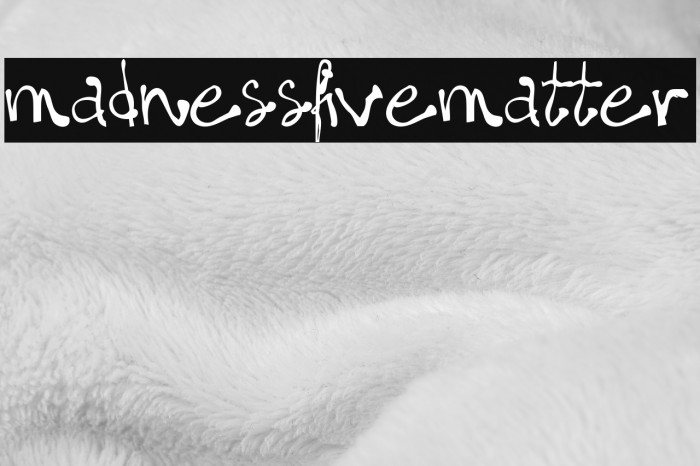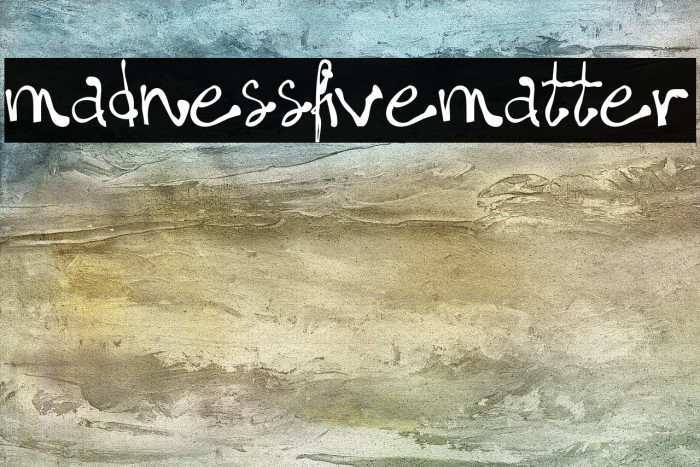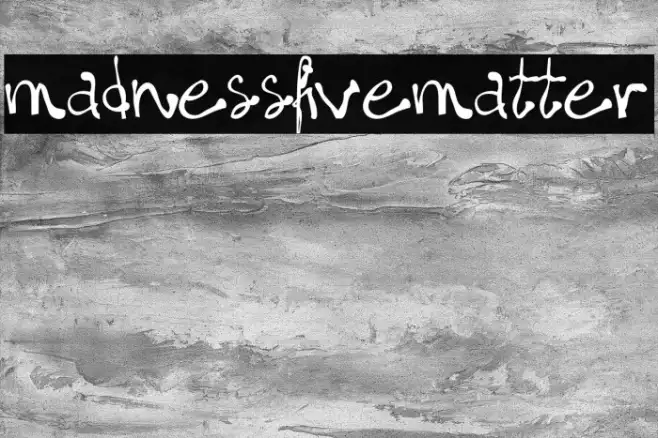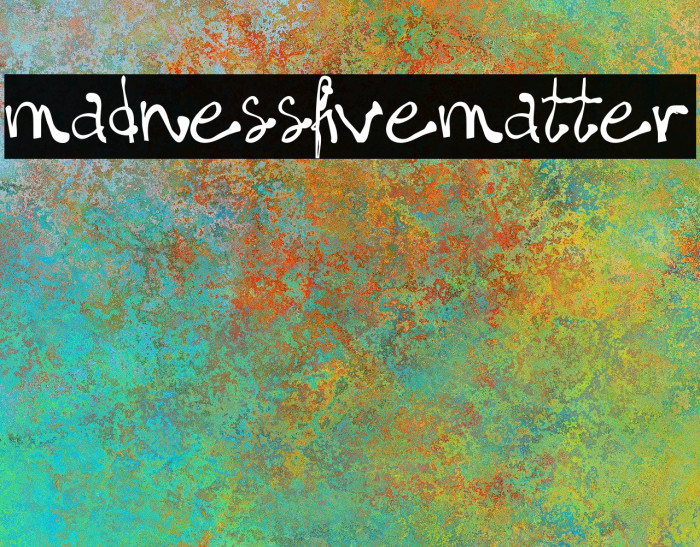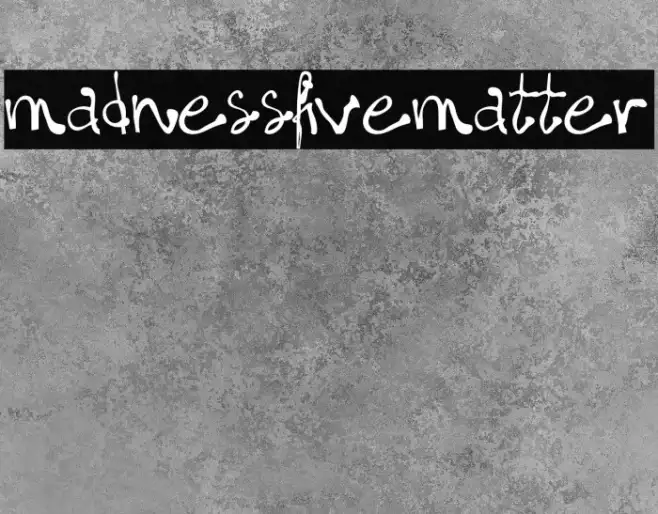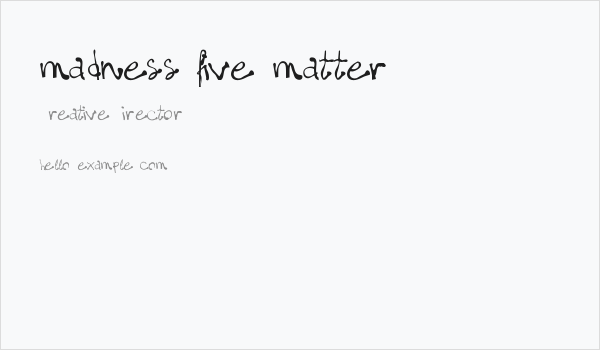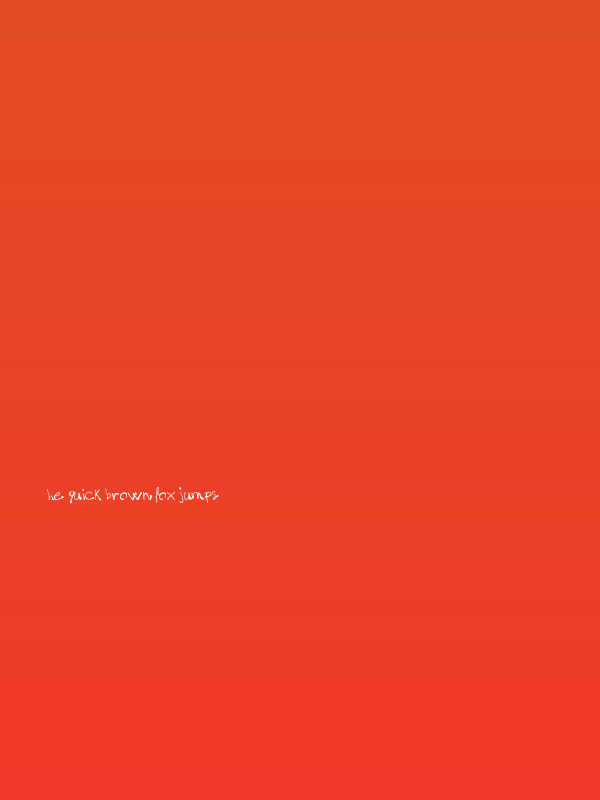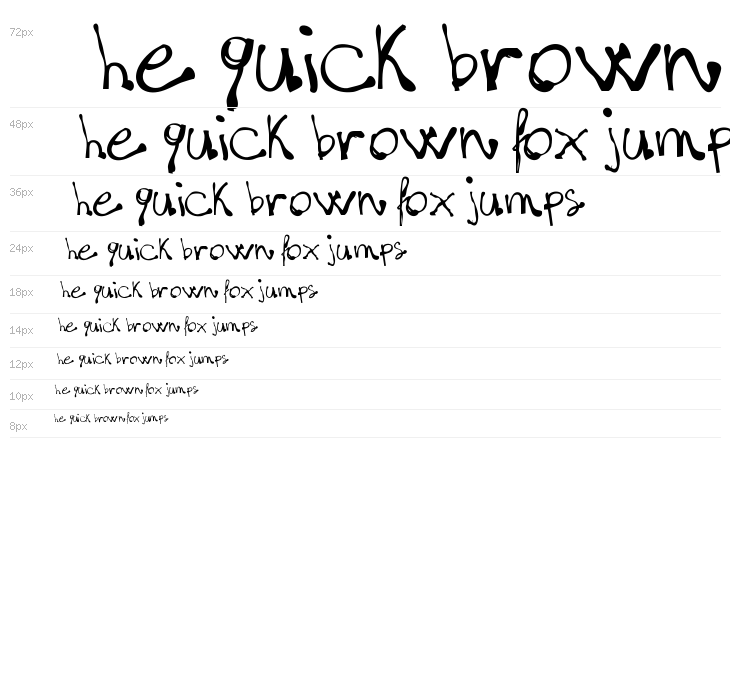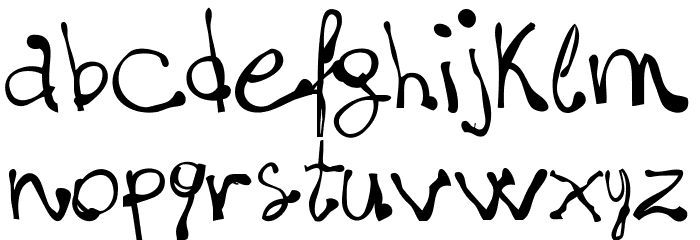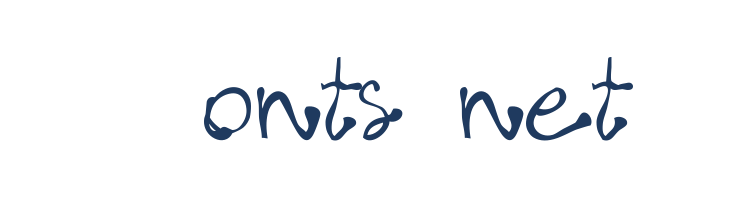
madness=five$matter! Font
madness=five$matter! Description
This font exhibits a playful and whimsical style, characterized by its irregular and uneven strokes. The letters are crafted with a hand-drawn appearance, giving it a unique and artistic flair. The varying thickness of the lines adds to its dynamic and lively nature, making it stand out with a distinct personality. The font's quirky and informal design is well-suited for creative projects that aim to convey a sense of fun and spontaneity. Its unconventional shapes and forms make it ideal for artistic endeavors, where a touch of individuality is desired.